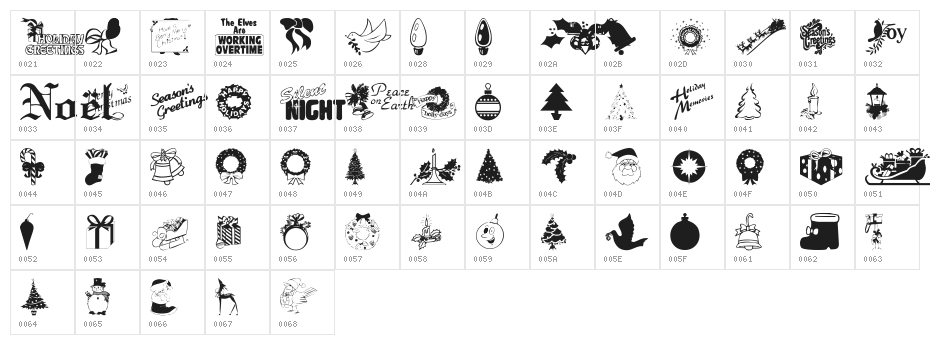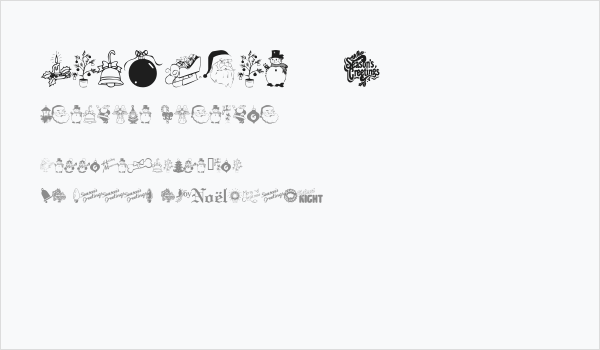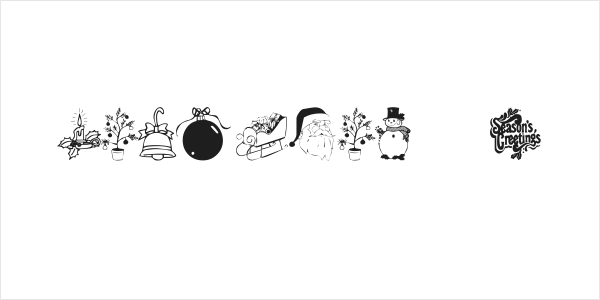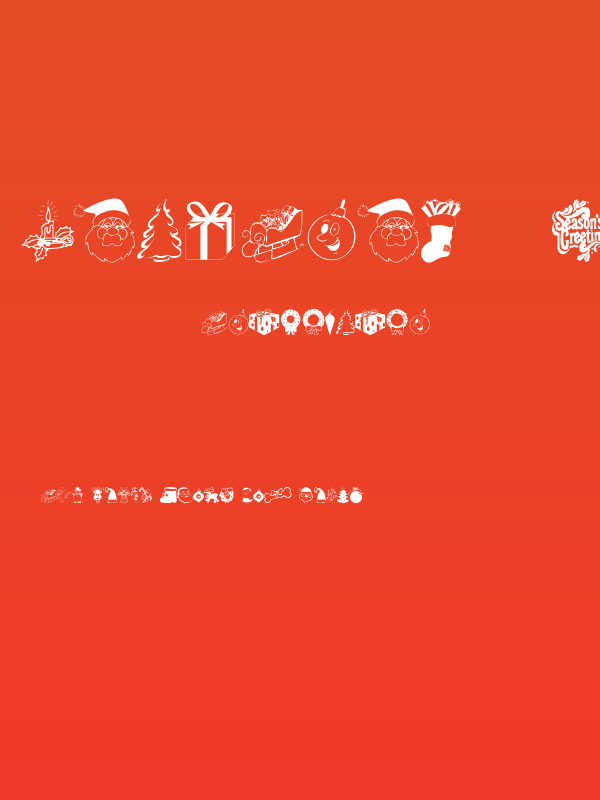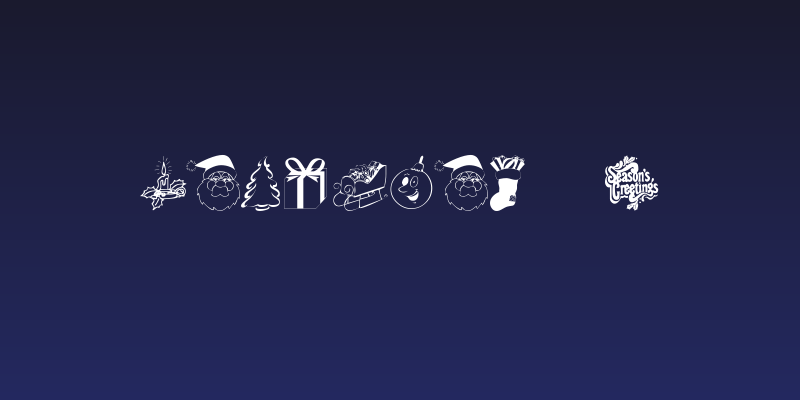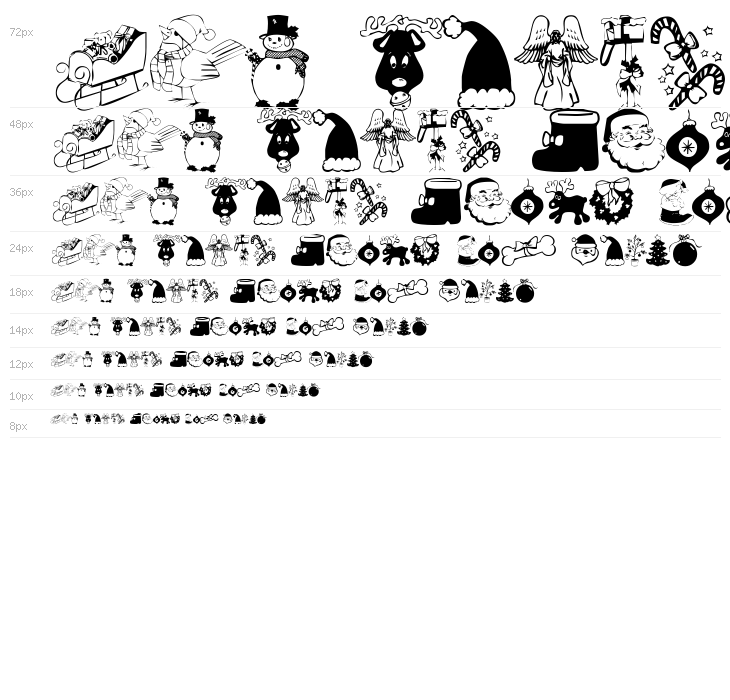
XmasTyme 1 Font
XmasTyme 1 Description
This is a decorative font that captures the festive spirit of the holiday season with a variety of Christmas-themed icons and symbols. The characters are replaced with intricate illustrations such as Christmas trees, wreaths, Santa Claus, snowmen, and other holiday motifs. Each symbol is detailed, offering a playful and whimsical feel, perfect for adding a festive touch to any project. The style is bold and eye-catching, making it suitable for decorative purposes where a strong holiday theme is desired.
| Use Case | Logos, Headlines, Decorative elements |
| Proposed Projects | Ideal for holiday greeting cards, festive event invitations, Christmas-themed posters, and seasonal marketing materials. |